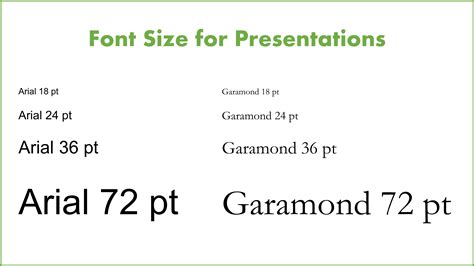
Font Size For Presentation. Web without knowing the exact size and ratio of the screen or the layout of the court/mediation location, here are our. Web 12 rows avoid very thin or decorative fonts that might impair readability, especially at small sizes.
Choose a font size that your. Web 12 rows avoid very thin or decorative fonts that might impair readability, especially at small sizes. Web without knowing the exact size and ratio of the screen or the layout of the court/mediation location, here are our.
Web 12 rows avoid very thin or decorative fonts that might impair readability, especially at small sizes. Web 12 rows avoid very thin or decorative fonts that might impair readability, especially at small sizes. Web without knowing the exact size and ratio of the screen or the layout of the court/mediation location, here are our. Choose a font size that your.